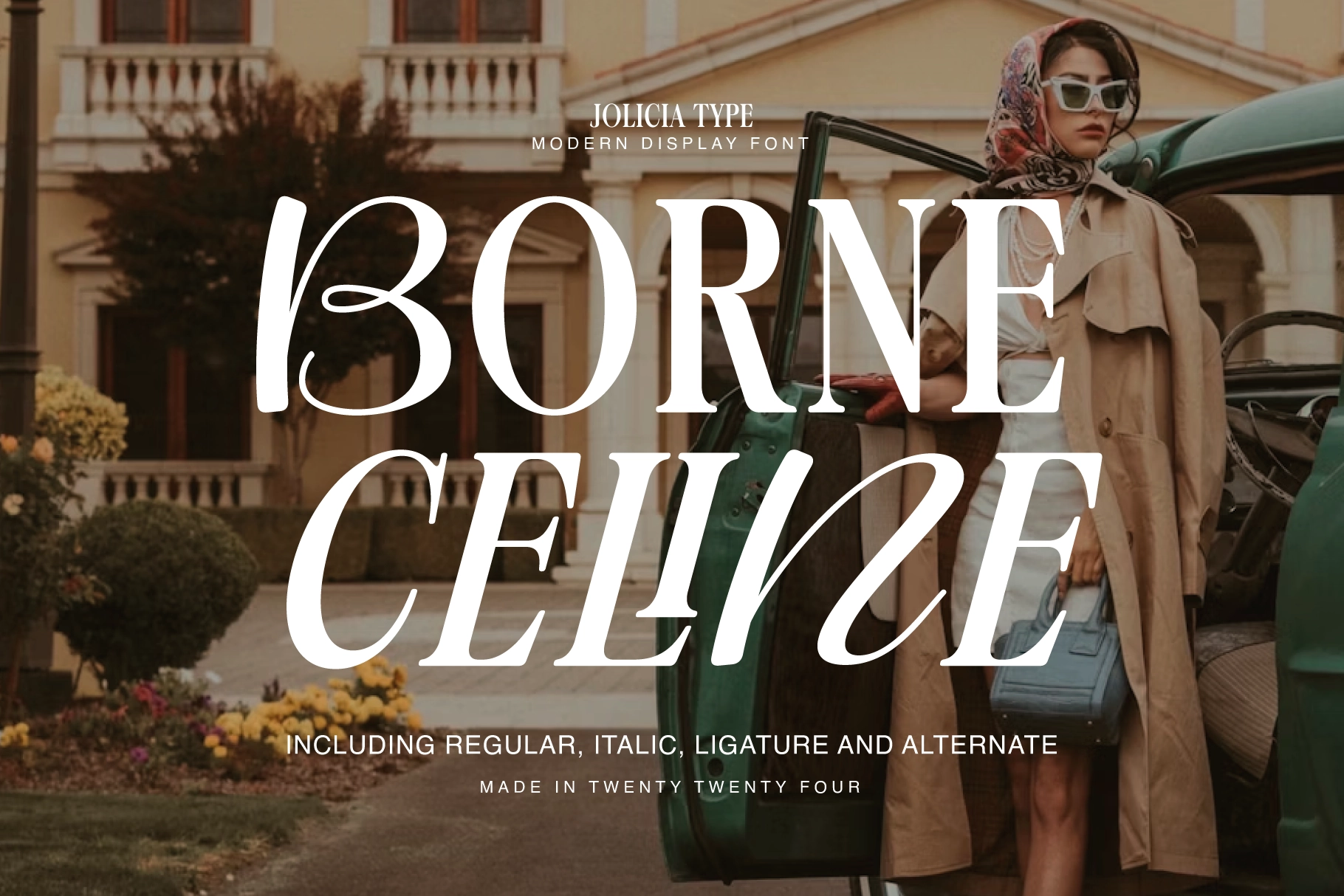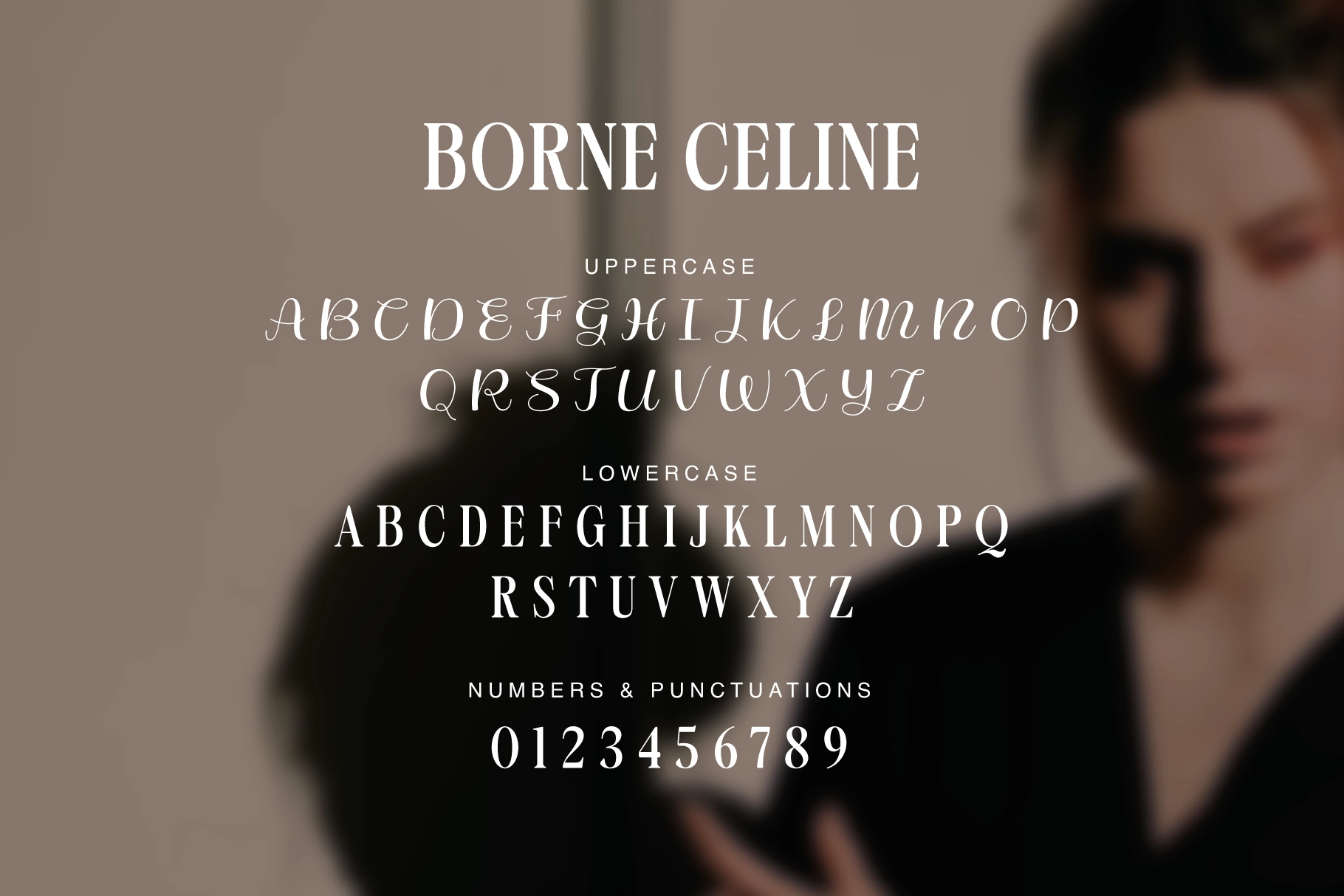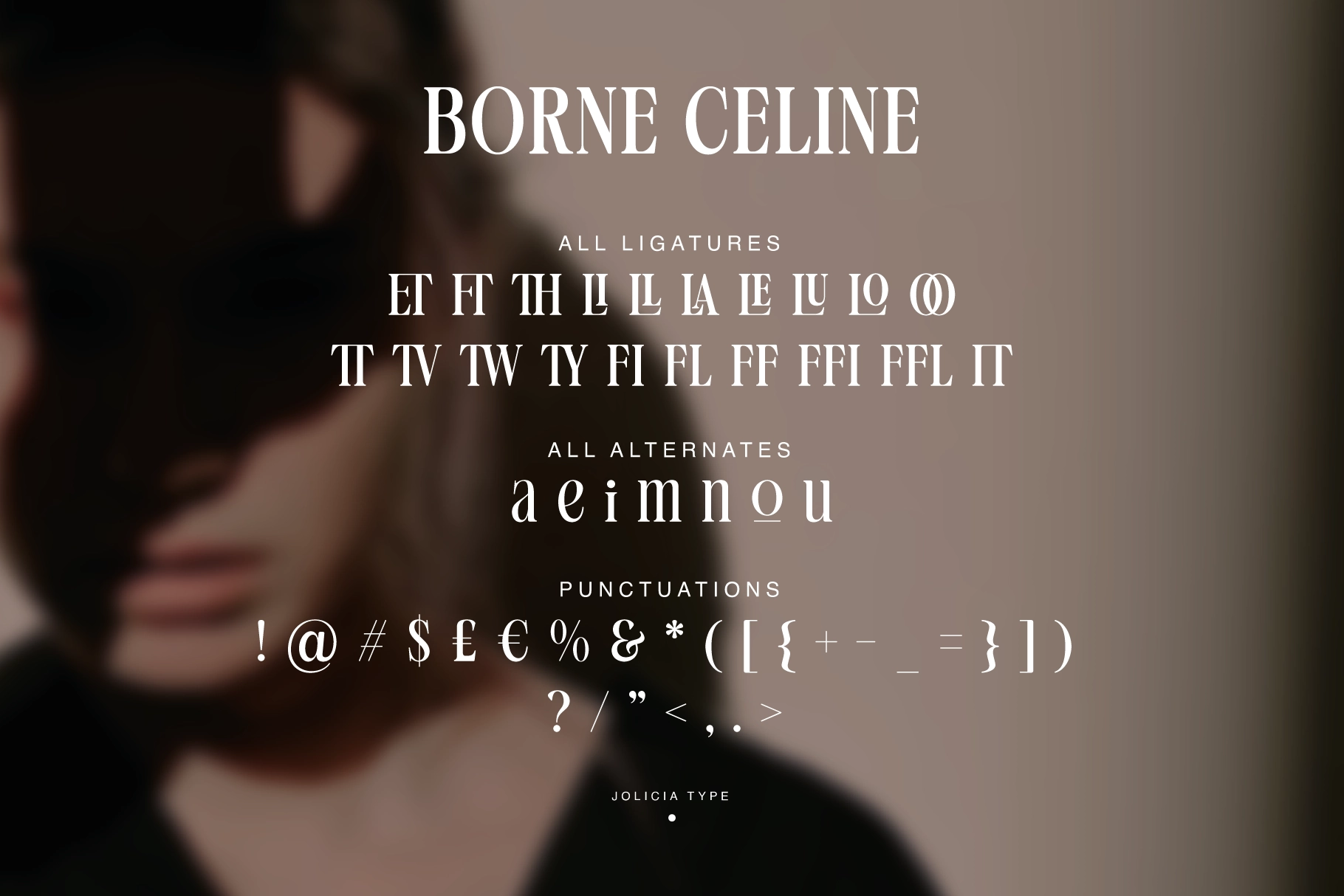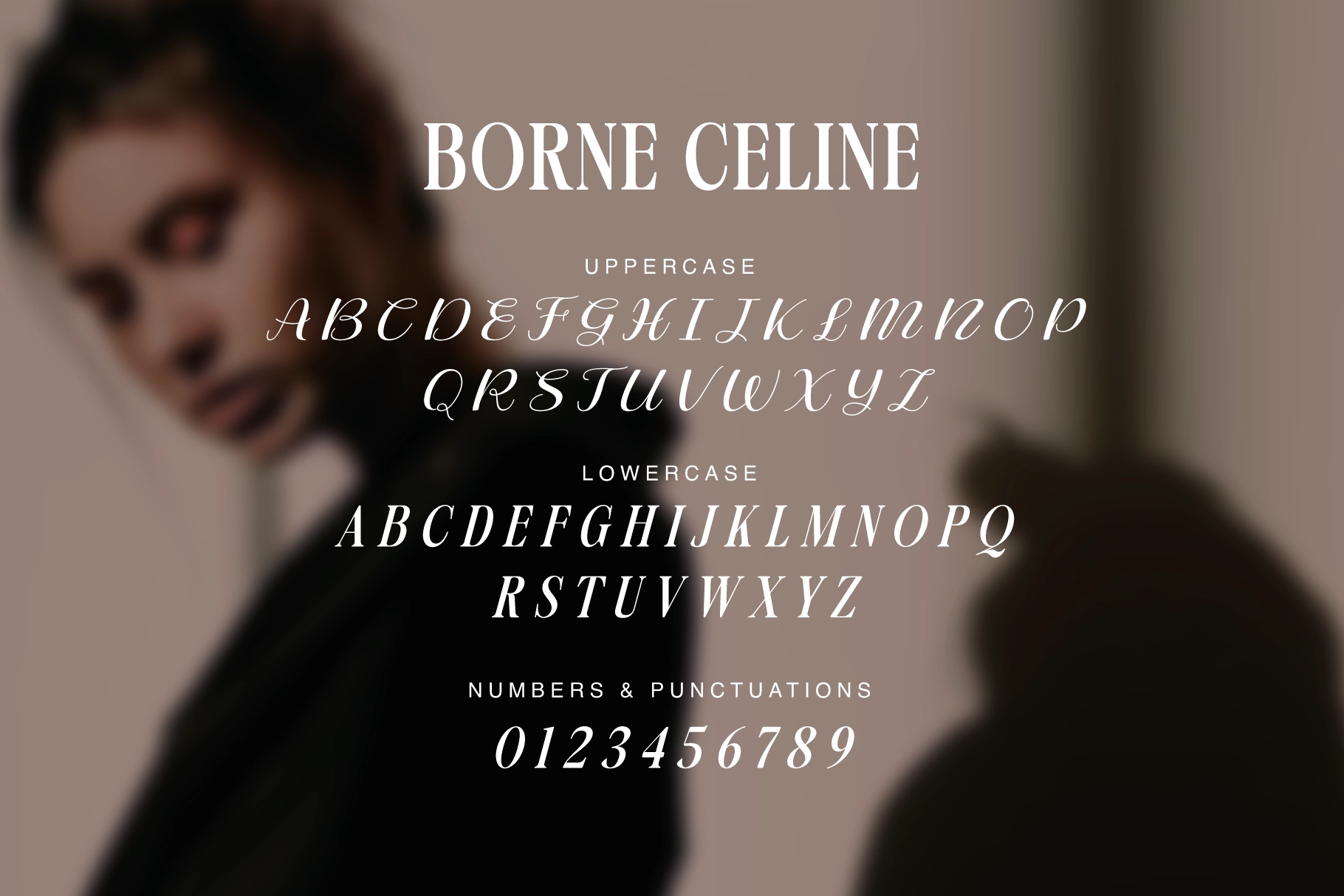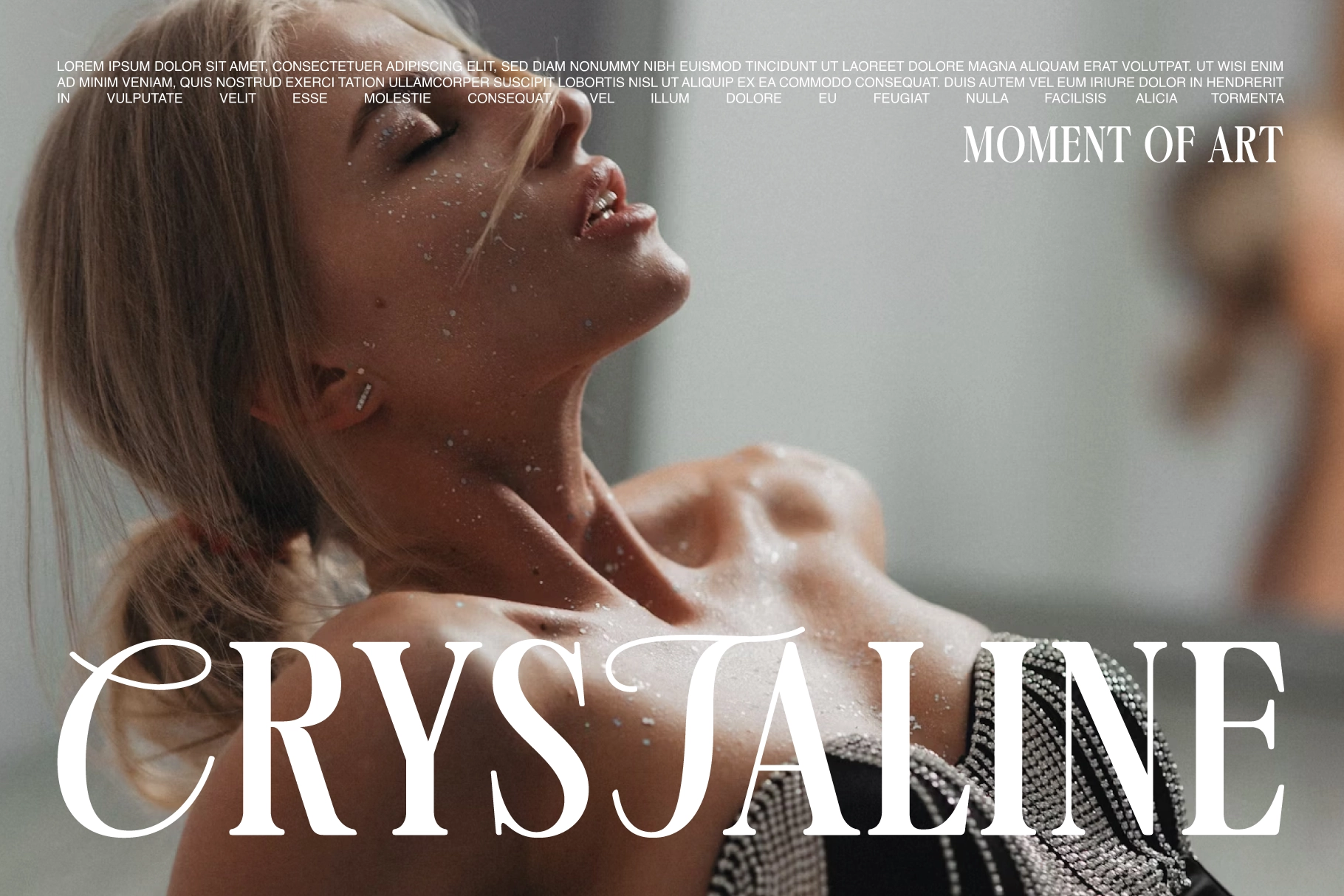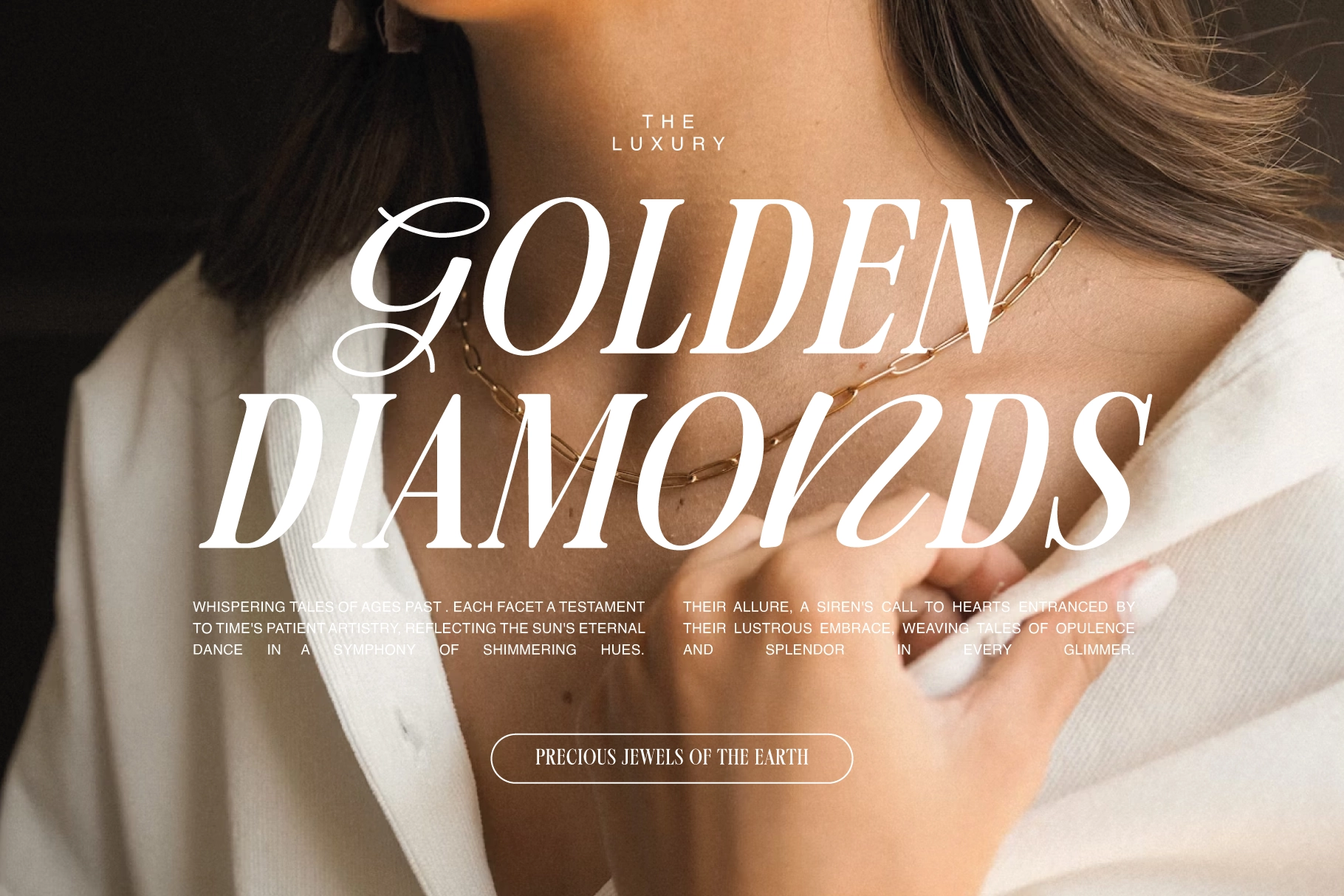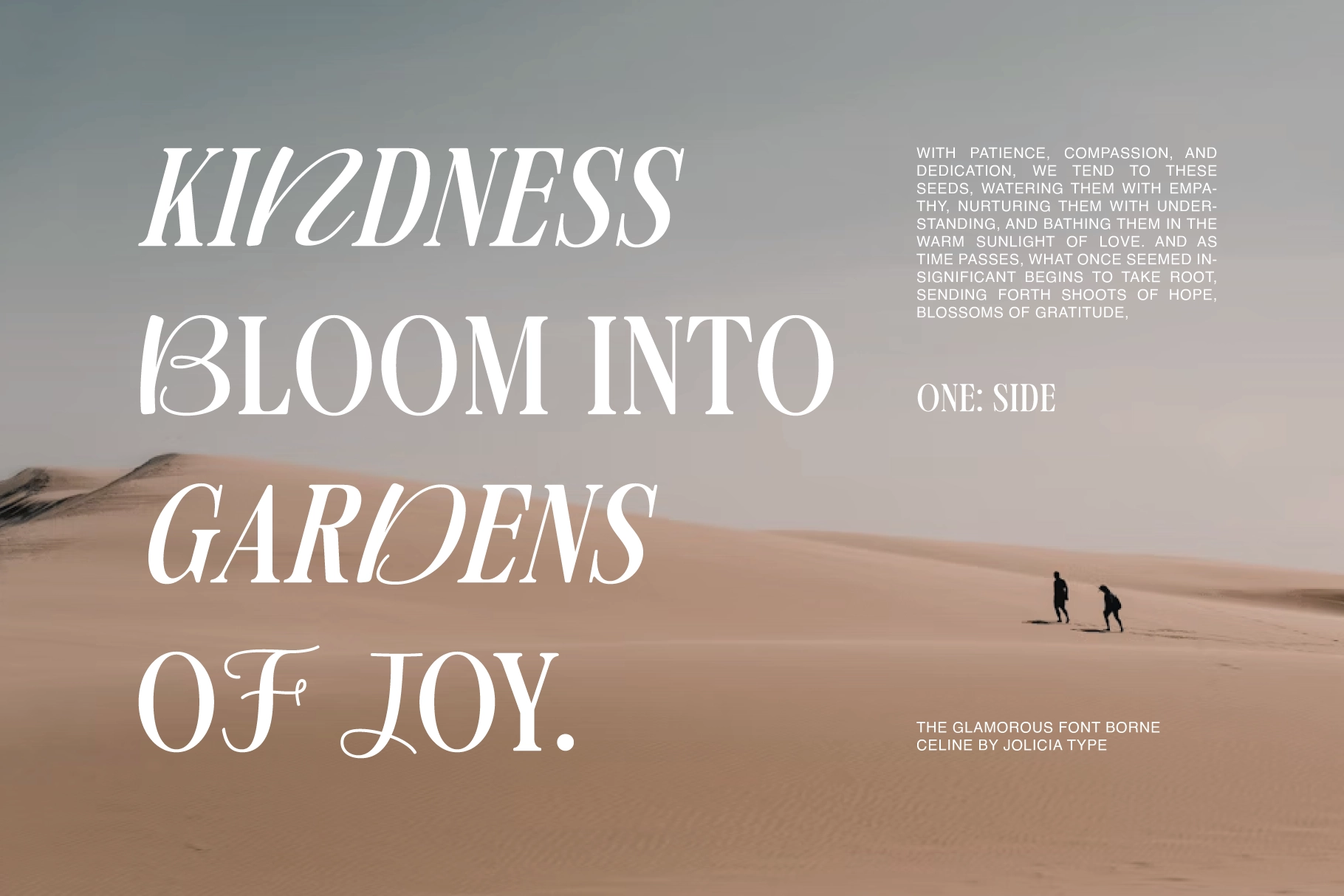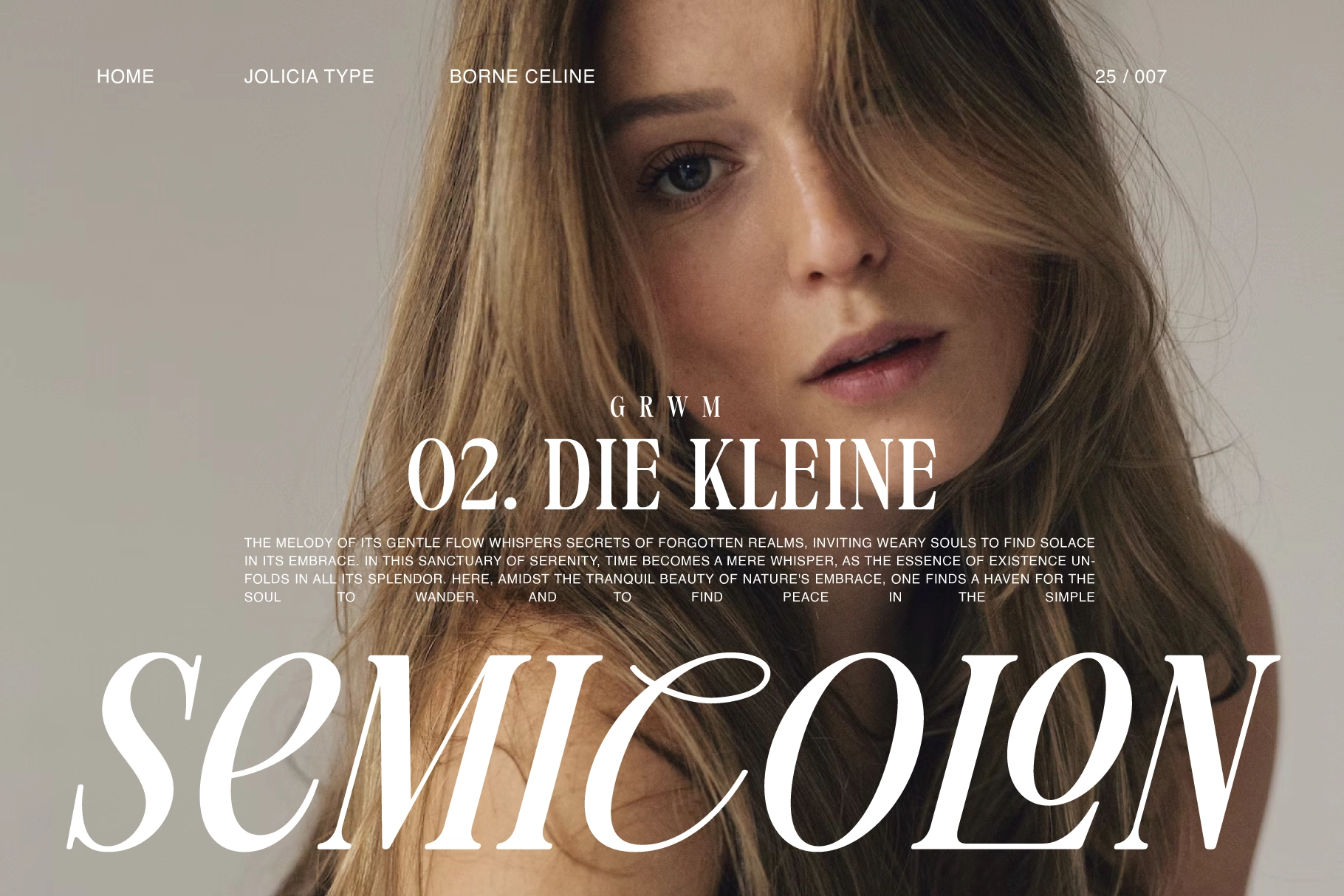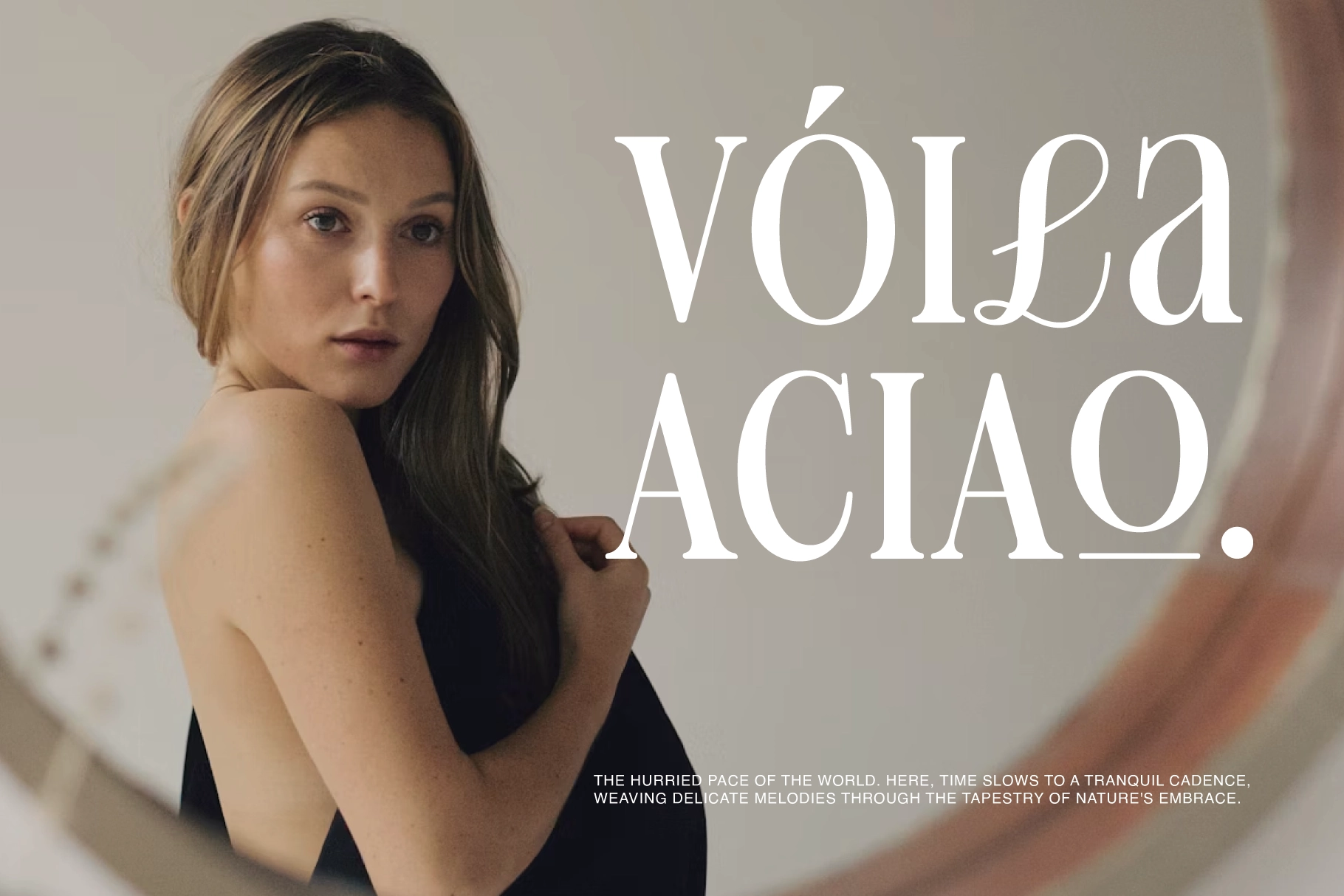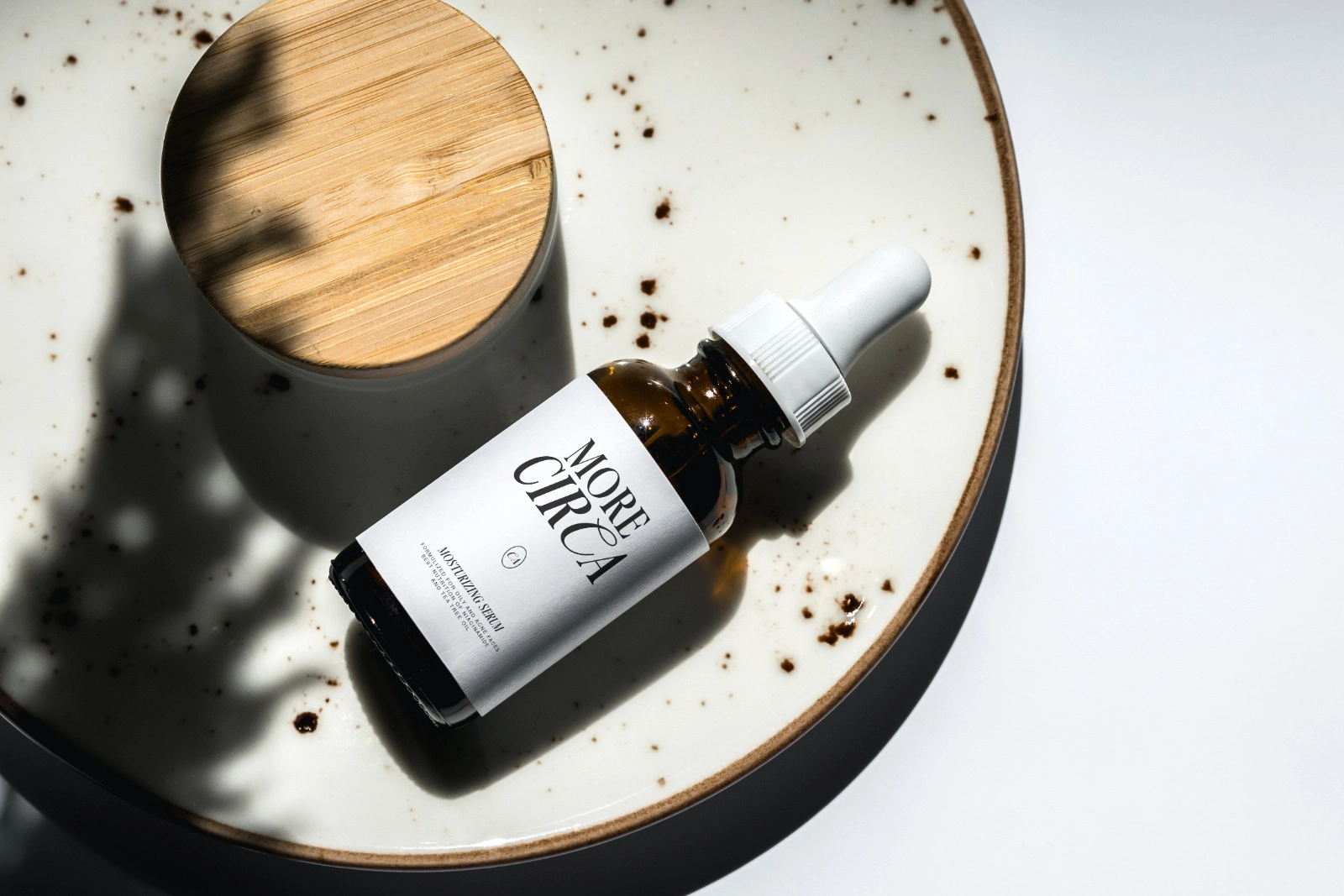
Borne Celine - Elegant Fashion Display Font
This elegant serif font has sharp contrast, graceful curves, and a polished editorial presence made for high-end visual systems. Its italic forms, refined ligatures, and stylish alternates give headlines a couture-grade rhythm without turning every letter into a drama student.
Use Borne Celine for fashion branding, luxury logos, magazine covers, editorial headlines, perfume packaging, wedding invitations, boutique identities, lookbooks, social media campaigns, beauty labels, art direction boards, event stationery, and more. It works especially well for large titles and short statements where the ligatures can carry the composition with quiet confidence.
• Regular & Italic
• Ligatures
• Alternate glyphs